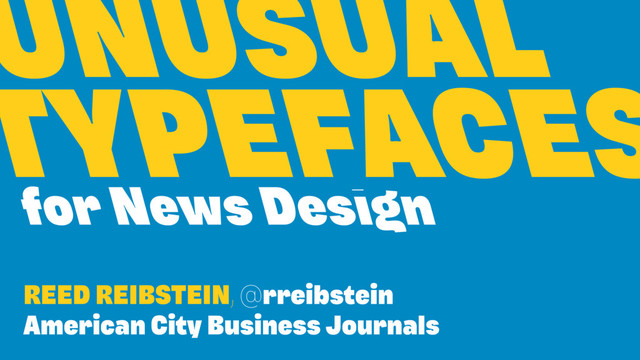
Unusual Typefaces for News Design
for News Design UNUSUAL TYPEFACES REED REIBSTEIN, @rreibstein American City
Business Journals
№ 1 Find a hairline companion for your serif face
Benton Modern Display (Font Bureau)
Marian Commercial Type
Marian 1812
№ 2 Get more bang for your buck with
an atypical family Luc(as) de Groot’s Interpolation Theory
Buendia Bold Monday
№ 3 Stand out with unconventional contrast Daily DrawBot
Lumin Typotheque
Roster Font Bureau
№ 4 Generate creative headline treatments
Nitti Mostro Bold Monday
№ 5 Develop a typographic system across multiple publications
McClatchy Sans/ Serif/Slab Commercial Type
Where to discover unusual typefaces ↓ Fontstand Mac app ➽
Typographica’s “Our Favorite Typefaces of …” ➽ Typefacts’ “The Best Fonts of …” ➽ The Type Directors Club Typeface Design competition
in Triade from Coppers & Brasses